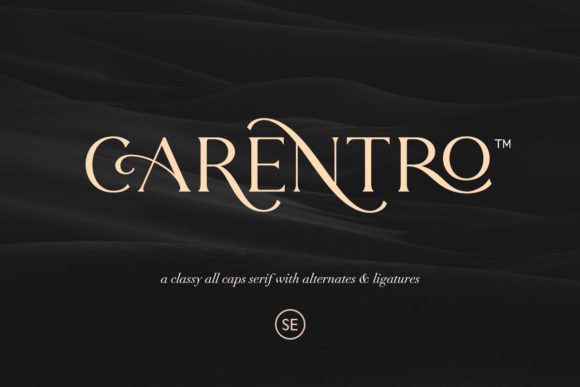
Carentro Font: The Perfect Typeface for Fashion Websites
Introducing Carentro, the ultimate serif font designed specifically for fashion websites. Created by the talented saridezra, this elegant typeface is a must-have for anyone looking to elevate their online presence and captivate their audience.
With its timeless and sophisticated design, Carentro is the epitome of elegance. Its sleek and slender letterforms exude a sense of refinement and class, making it the perfect choice for fashion-related projects. Whether you're designing a high-end clothing brand's website or creating stunning fashion blog posts, Carentro will add a touch of luxury to your work.
One of the standout features of Carentro is its incredible versatility. This font effortlessly adapts to any design concept, allowing you to explore endless creative possibilities. From bold headlines to delicate body text, Carentro handles it all with grace and style. Its versatility ensures that your website or marketing materials will always stand out from the crowd.
But Carentro is more than just a pretty face. It is a font that speaks to the emotions of your audience. With every stroke, it evokes feelings of sophistication, elegance, and luxury. Imagine the impact it will have on your users when they visit your fashion website and are greeted by the stunning beauty of Carentro. It will create an immediate emotional connection and leave a lasting impression.
Choosing Carentro means you're choosing to make a statement. It's not just another font; it's a symbol of your dedication to delivering the best user experience. Your customers will appreciate the attention to detail and the thoughtfulness put into choosing such a remarkable typeface.